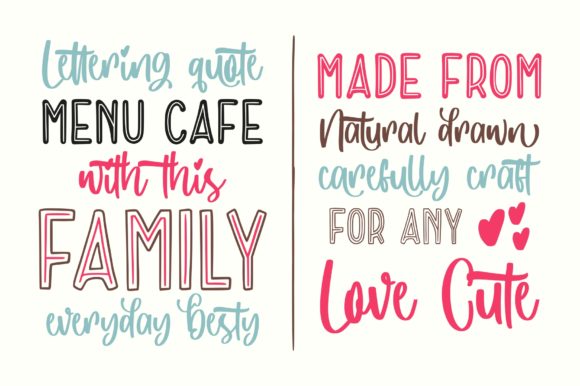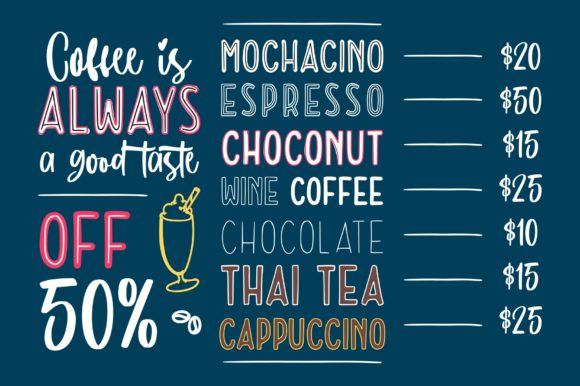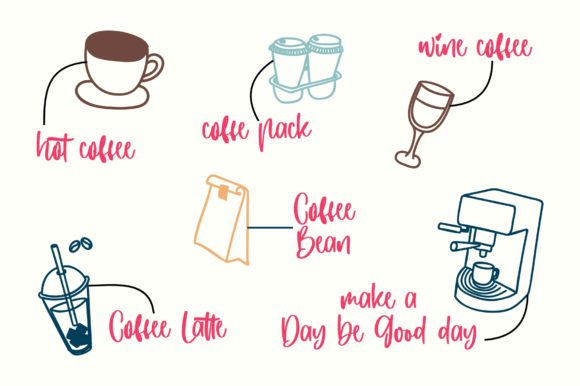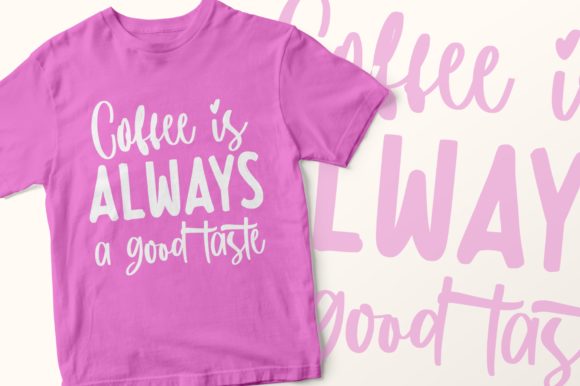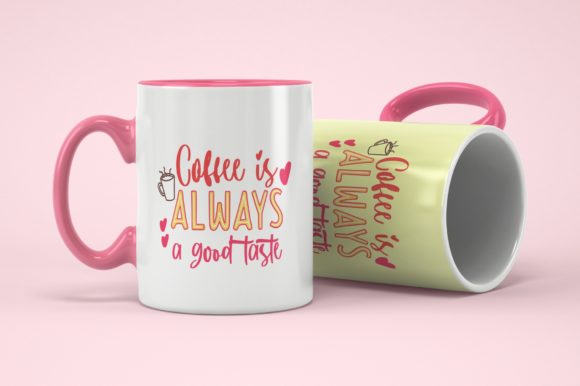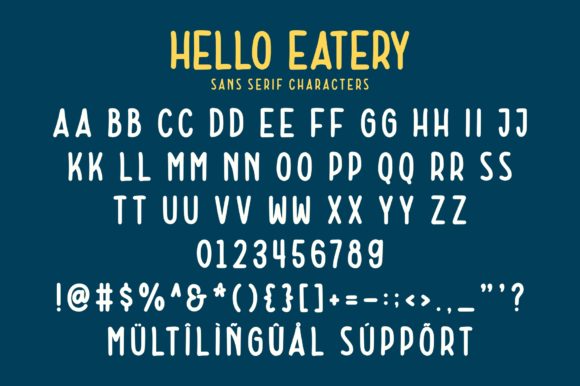
Hello Eatery Font: The Ultimate Duo for Joyful Designs
Hello Eatery is a joyful and incredibly versatile duo font that has taken the design world by storm. This fantastic font combination consists of a sans serif and script font that can add a touch of fun, quirkiness, and friendliness to any design project. Whether you’re a designer, crafter, or DIY enthusiast, Hello Eatery is the ideal choice for your next creative venture.
The Perfect Pairing: Sans Serif and Script Fonts
Hello Eatery is a duo font that combines the simplicity and elegance of a sans serif font with the flair and sophistication of a script font. The sans serif font is clean, modern, and highly legible, making it perfect for headlines, titles, and short paragraphs of text. On the other hand, the script font is cursive, fluid, and highly decorative, making it ideal for adding a touch of elegance and personality to your designs.
Key Features of Hello Eatery Font
• Versatility: Hello Eatery is an incredibly versatile font duo that can be used for a wide range of design projects, from branding and advertising to packaging and crafting.
• Fun and Quirky: The font has a playful and fun personality that can add a touch of whimsy and humor to your designs.
• Friendliness: Hello Eatery has a friendly and approachable feel that can make your designs feel more approachable and inviting.
• Elegance: The script font has a sophisticated and elegant feel that can add a touch of luxury and refinement to your designs.
Uses of Hello Eatery Font
Hello Eatery is a highly versatile font duo that can be used for a wide range of design projects, including:
• Branding and Advertising: Use Hello Eatery to create eye-catching logos, advertisements, and marketing materials that stand out from the crowd.
• Packaging Design: Add a touch of fun and personality to your product packaging with Hello Eatery.
• Crafting and DIY Projects: Use Hello Eatery to add a personal touch to your crafting and DIY projects, such as handmade cards, gift tags, and scrapbooking.
• Web Design: Use Hello Eatery to create visually appealing and engaging websites that reflect your brand’s personality.
Tips for Using Hello Eatery Font
Here are some tips for using Hello Eatery effectively in your designs:
• Mix and Match: Experiment with different combinations of the sans serif and script fonts to create visually appealing and engaging designs.
• Play with Size and Color: Play with different font sizes and colors to add depth and interest to your designs.
• Add Texture and Patterns: Add texture and patterns to your designs to give them a more tactile and organic feel.
Hello Eatery is a joyful and incredibly versatile duo font that can add a touch of fun, quirkiness, and friendliness to any design project. With its perfect pairing of sans serif and script fonts, Hello Eatery is the ideal choice for designers, crafters, and DIY enthusiasts who want to create visually appealing and engaging designs. Whether you’re working on a branding project, packaging design, or crafting project, Hello Eatery is sure to become your go-to font duo.